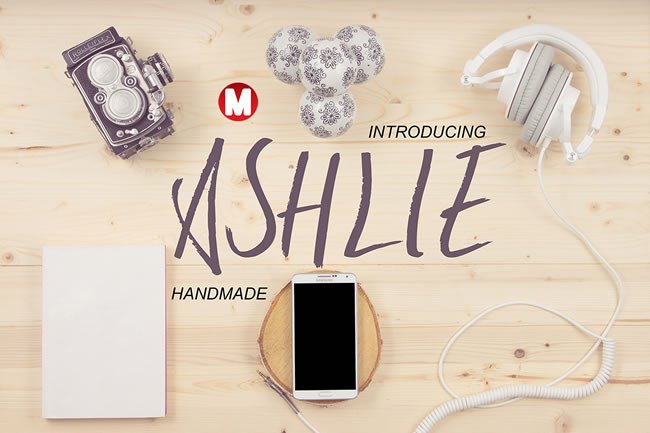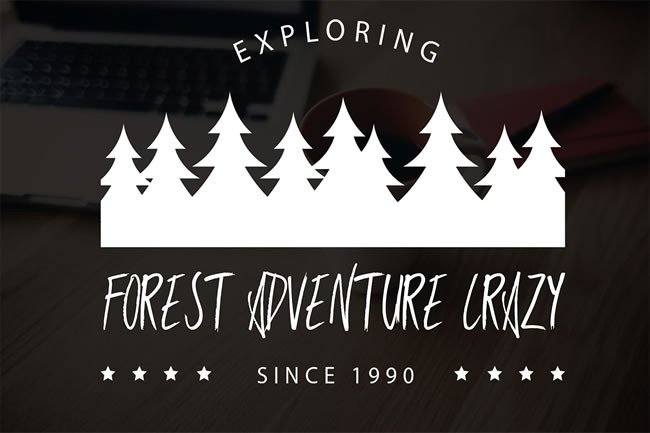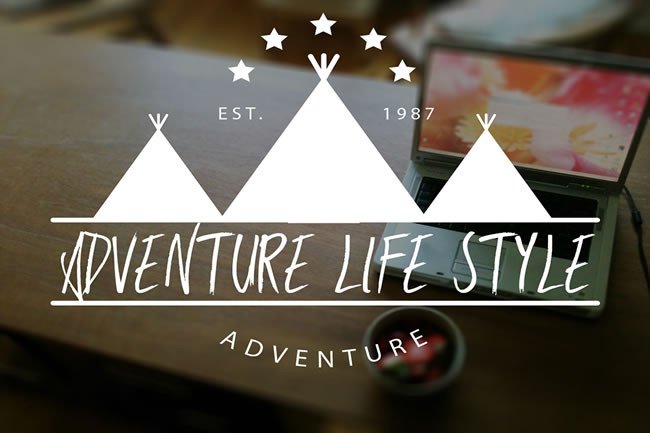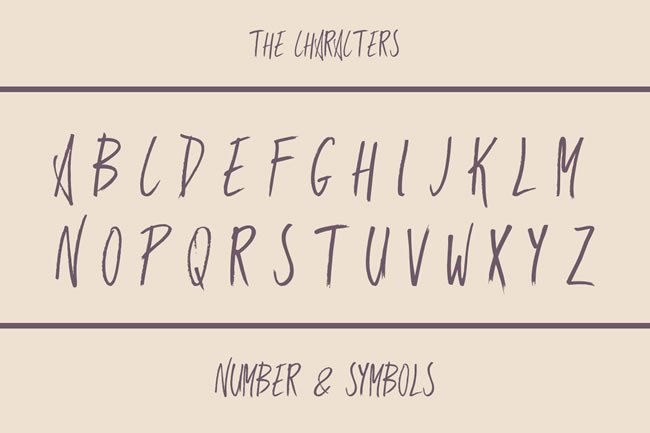
Ashlie Font
About Ashlie Font
Ashlie is a beautiful handmade font that can be used for various purposes such as headings, signatures, logos, t-shirts, letterheads, signage’s, posters, badges and anything else you can imagine this typeface with.